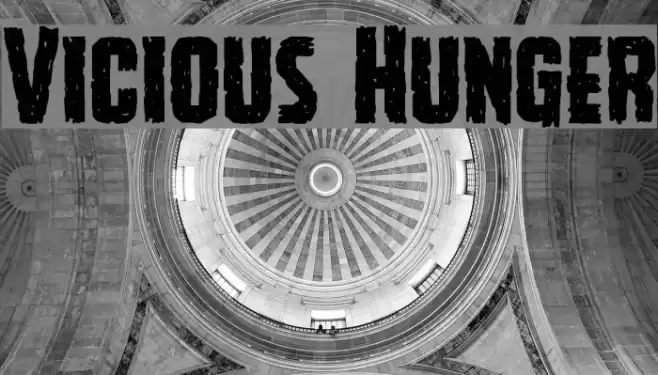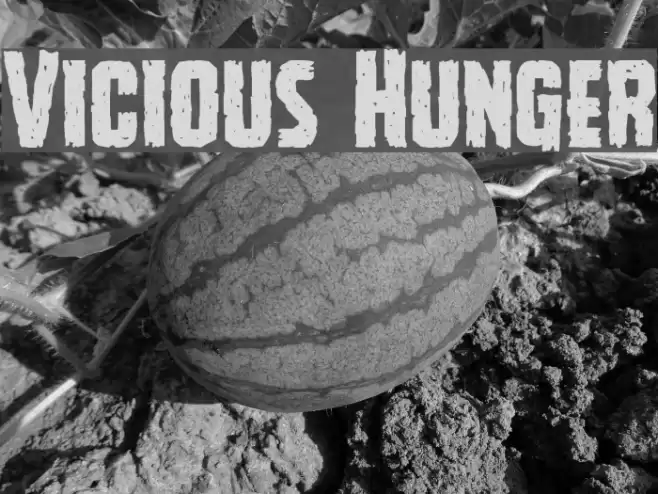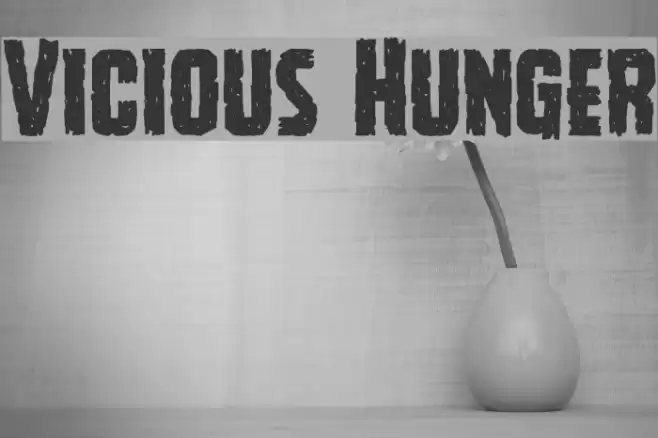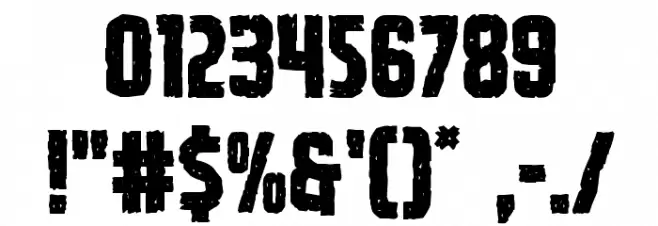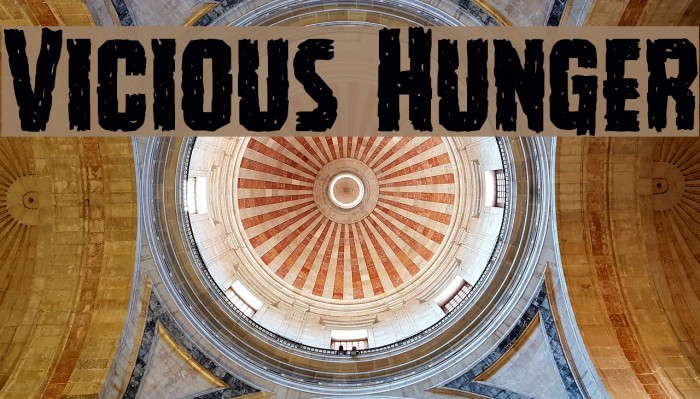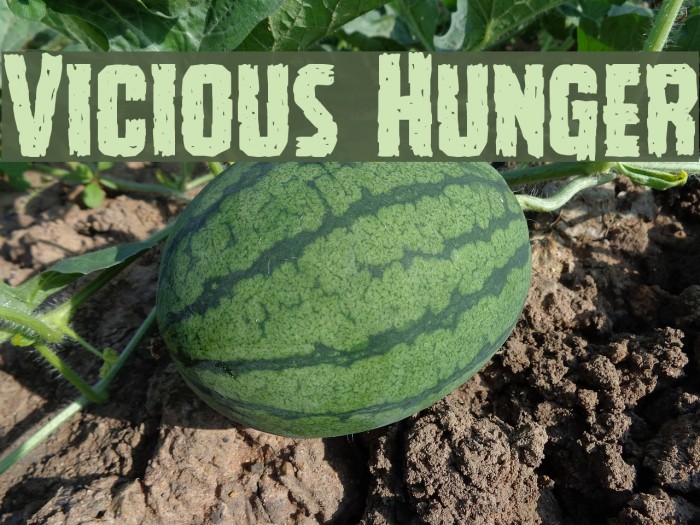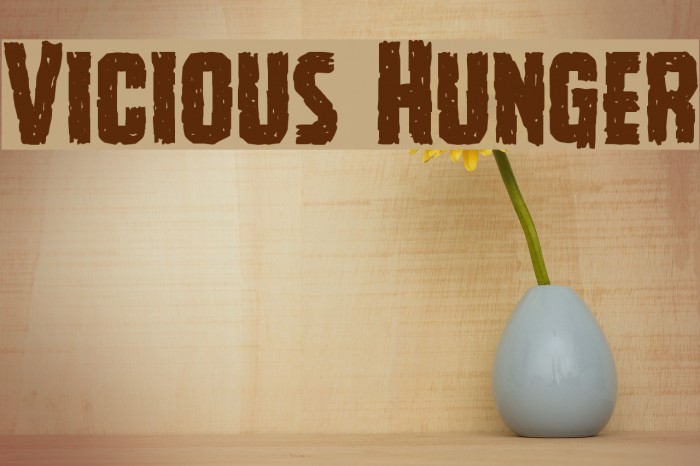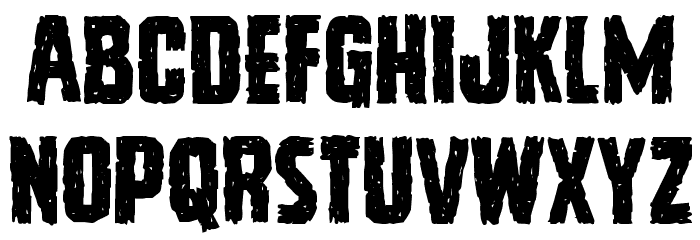
Vicious Hunger Font
Vicious Hunger Description
This font features a rugged, distressed appearance with bold, uneven strokes that give it a raw and edgy feel. The characters are heavily textured, resembling a hand-painted or graffiti style, which adds a sense of urgency and intensity. The uppercase and lowercase letters maintain a consistent height, while the numerals and special characters follow the same distressed aesthetic. This font is ideal for projects that require a bold statement and a touch of rebellion, such as posters, album covers, or streetwear branding.
A bold, distressed font with a rugged, graffiti-like appearance from Uncategorized fonts.
- Proposed Projects: Ideal for posters, album covers, streetwear branding, and any project needing a bold, edgy statement.